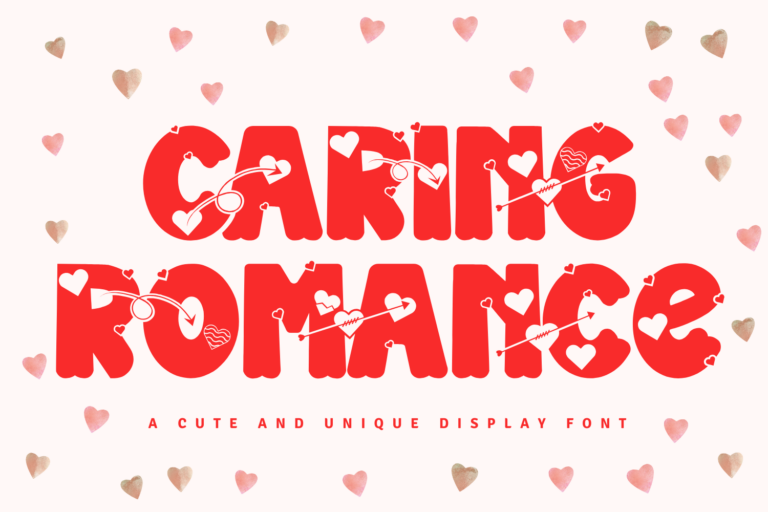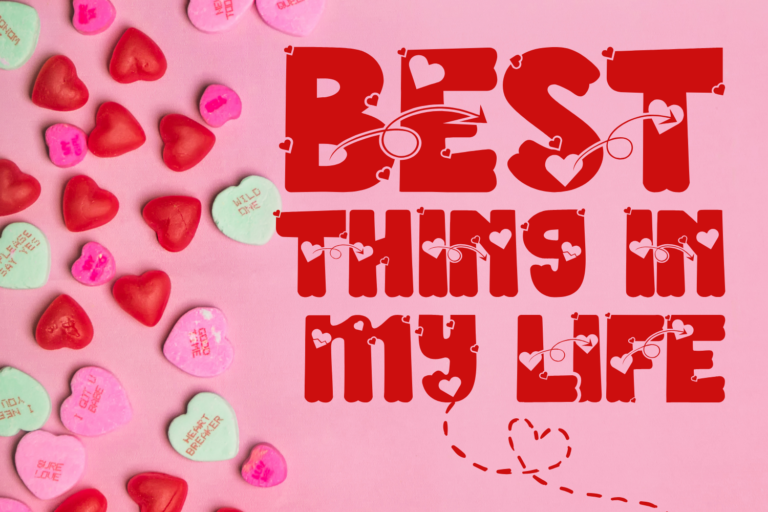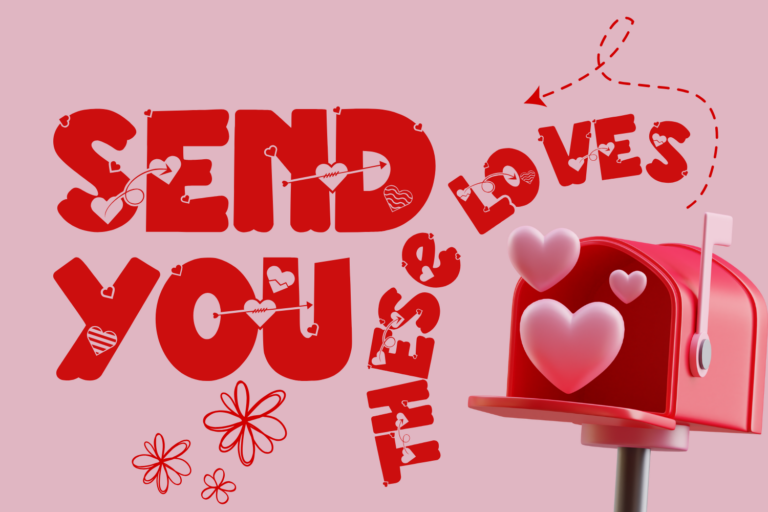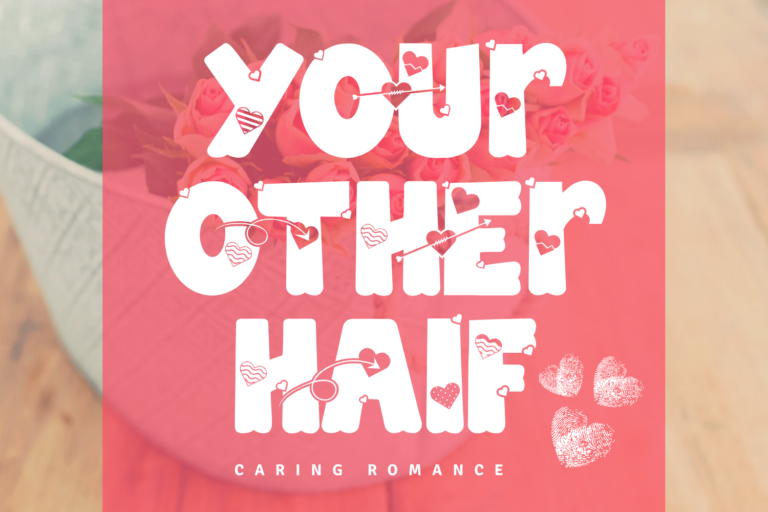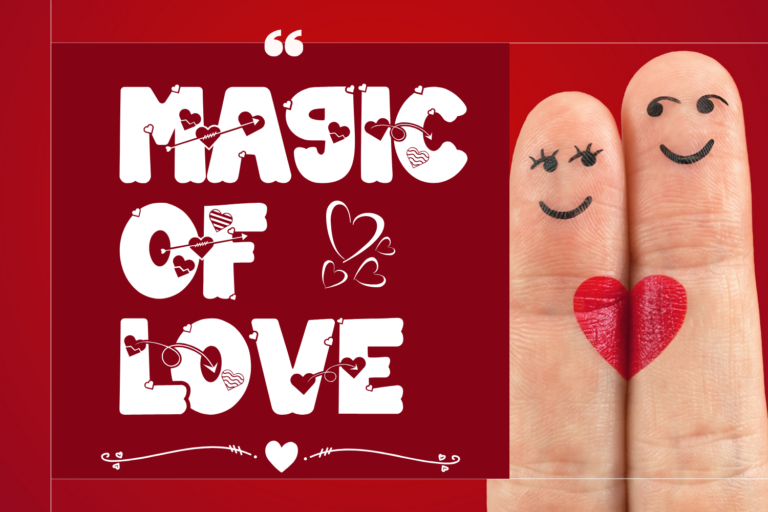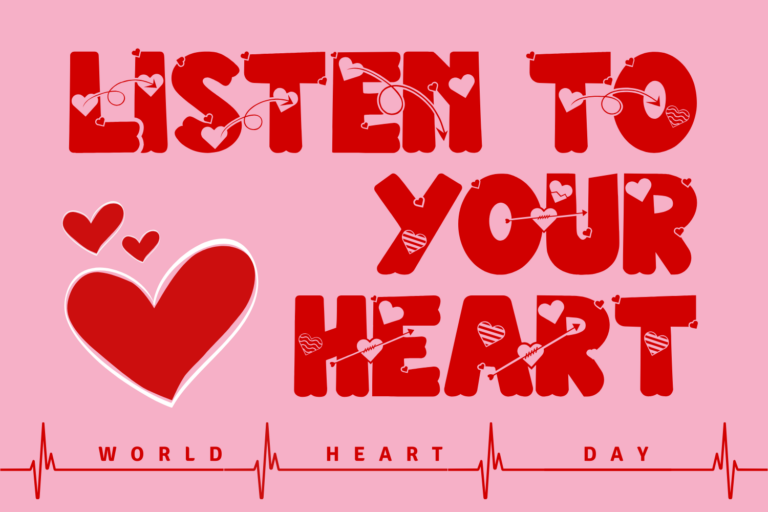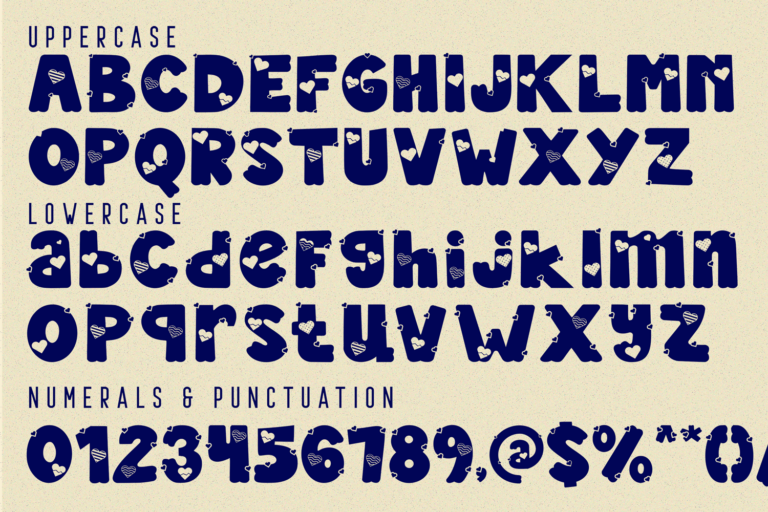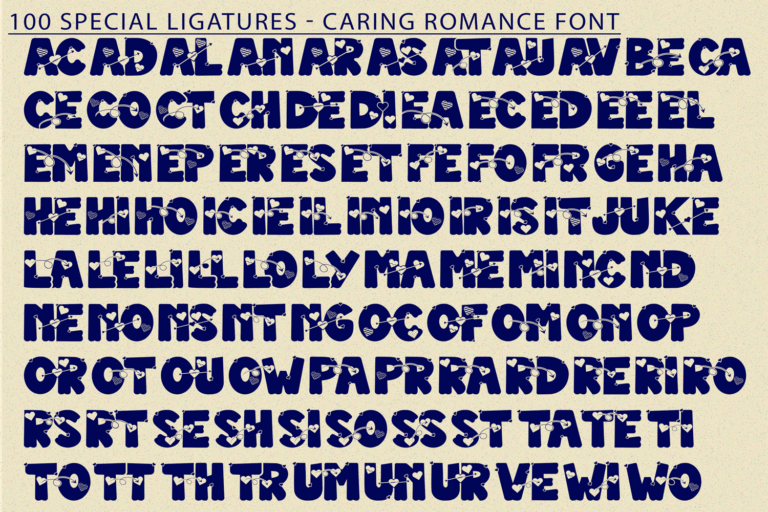
Caring Romance – Lovely Font – A Lovely and Playful Display Font, a heartwarming and playful display font designed to spread joy and affection. With its bubbly letterforms, whimsical arrows, and heart-filled shapes, this typeface brings a delightful charm to every design. Each character is packed with lovely details — from pierced hearts to wavy love lines — making it the perfect choice for Valentine’s cards, wedding stationery, children’s books, stickers, merchandise, and more.
Features:
• Uppercase & Lowercase Letters
• 100+ Fun and Decorative Ligatures
• Multilingual Support with Accented Characters
• Themed elements like arrows, hearts, and love motifs
ac ad al an ar as at au av be ca ce ch co ct de di ea ec ed ee el em en ep er es et fe fo fr ge ha he hi ho ie ic il in io ir is it ju ke la le li ll lo ly ma me mi nc nd ne ng no nt ns oc of om on oo op or ot ou ow pa pr ra rd re ri ro rs rt se sh si so ss st ta te th ti to tr tt um un ur ve wi wo
Caring Romance – Lovely Font